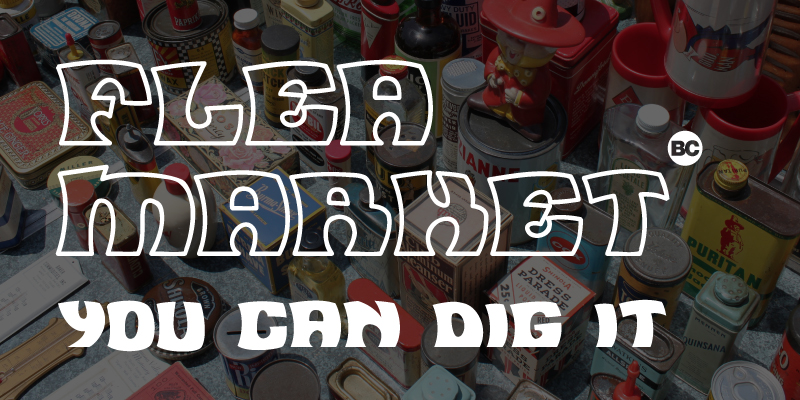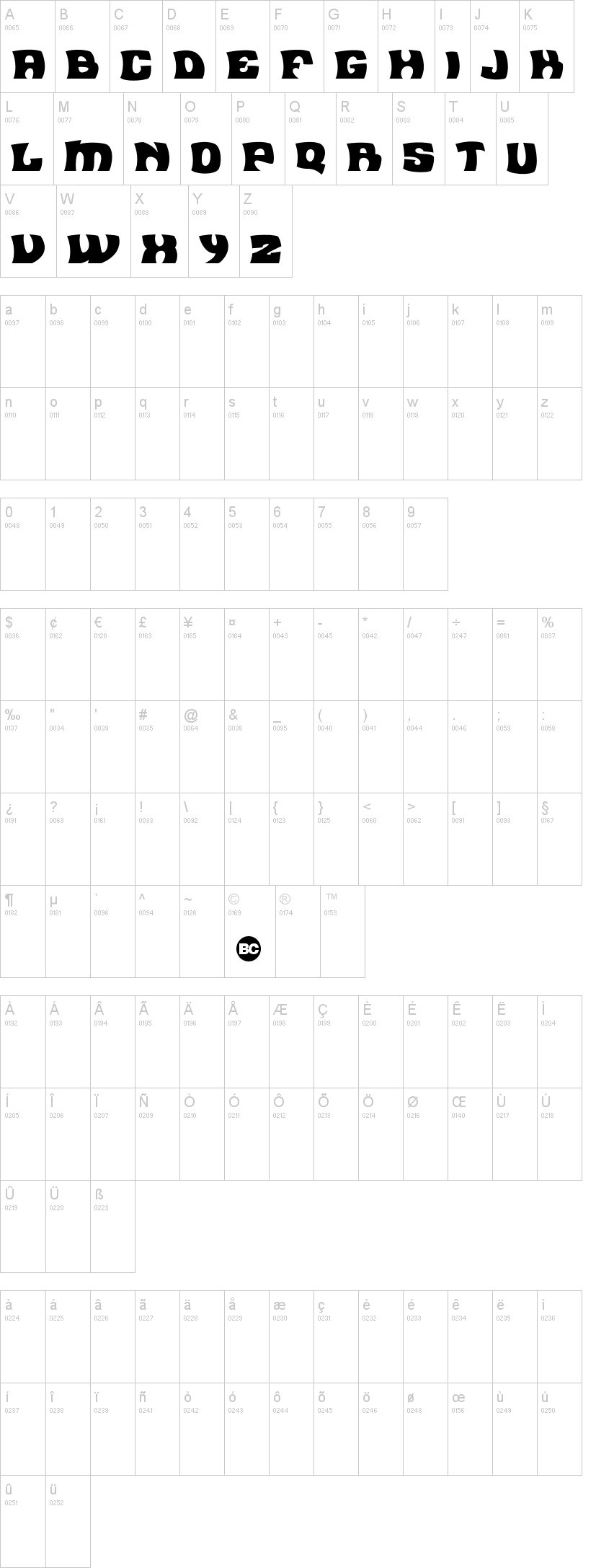
This groovy font inspired by 60's roundness is perfect for your events announcements with its eye-catching boldness.
It comes in two styles:
- Plain
- Outline
This font version is uppercase only and comes free for personal use.